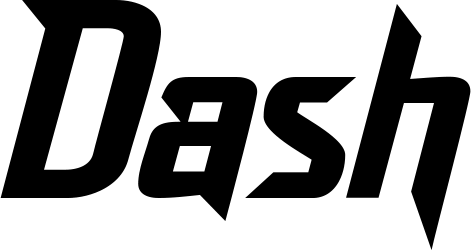
Dash Font
Let’s get together with the bold and definitive surroundings of this racing font to turn your writing ideas into an honorable reality through its dreamy impressions.
Although just punctuations are absent in this Dash font, be certain that it preserves its merit in many classic or modern places such as movie posters, logos, book covers, headlines, and other displays through its strong, sharpened design.